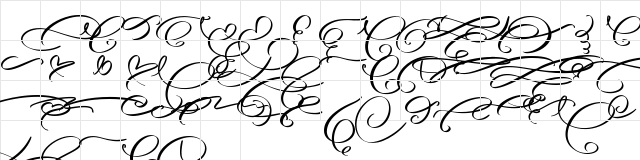
Angella Gardness Swash flows with the natural rhythm of handwritten lettering, making it ideal for designs that call for warmth and personal expression.
Font Pairing: Combine Angella Gardness Swash with a simple geometric sans for maximum contrast - the tension between flowing curves and clean structure is a classic typographic pairing.
Pro Tip: Use Angella Gardness Swash for short runs of text - names, titles, or taglines. Extended body copy in script faces tires the eye quickly.